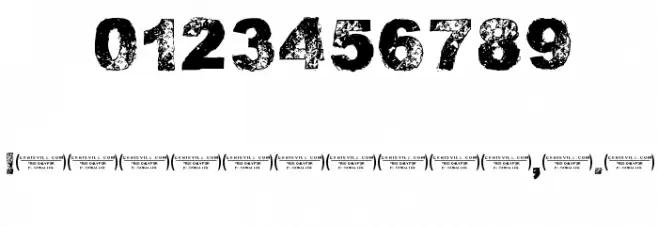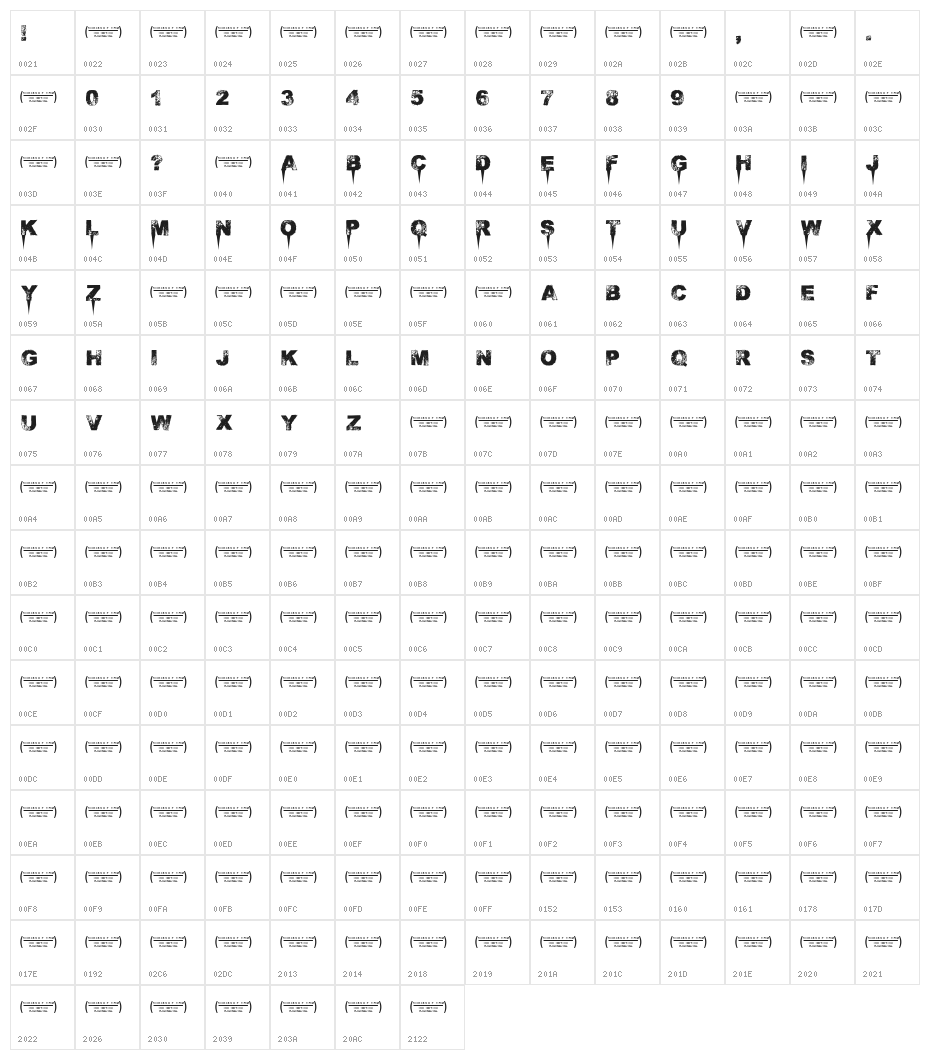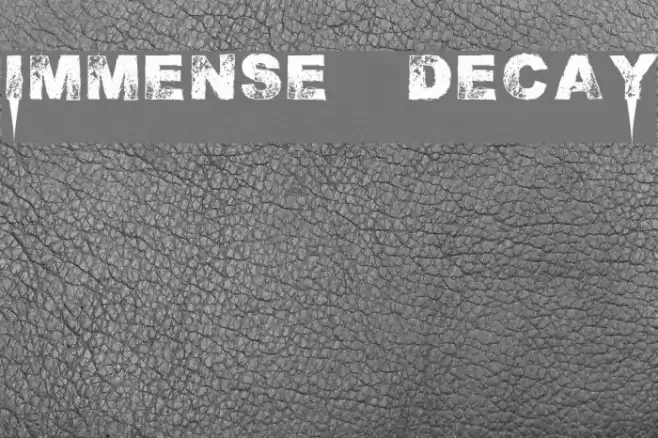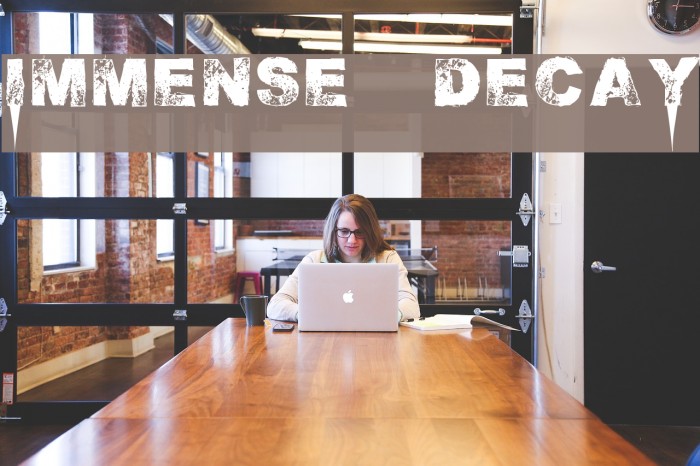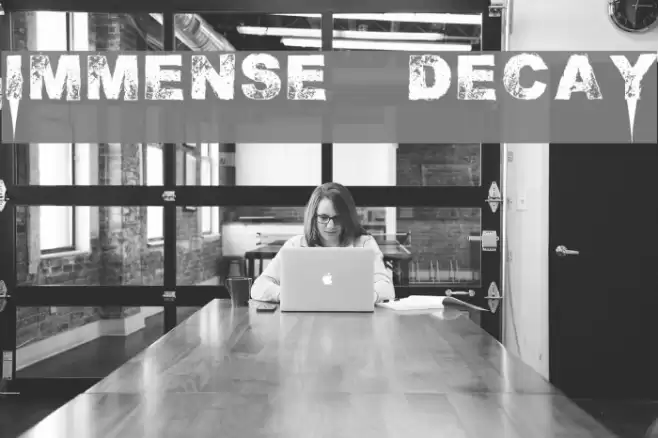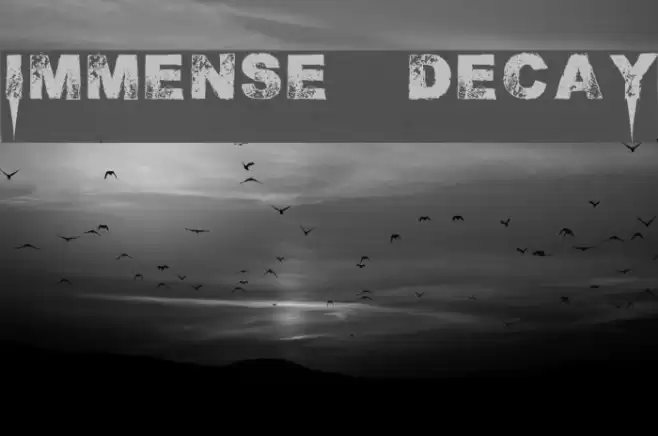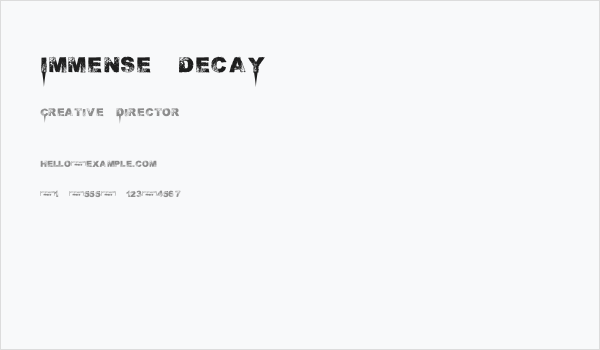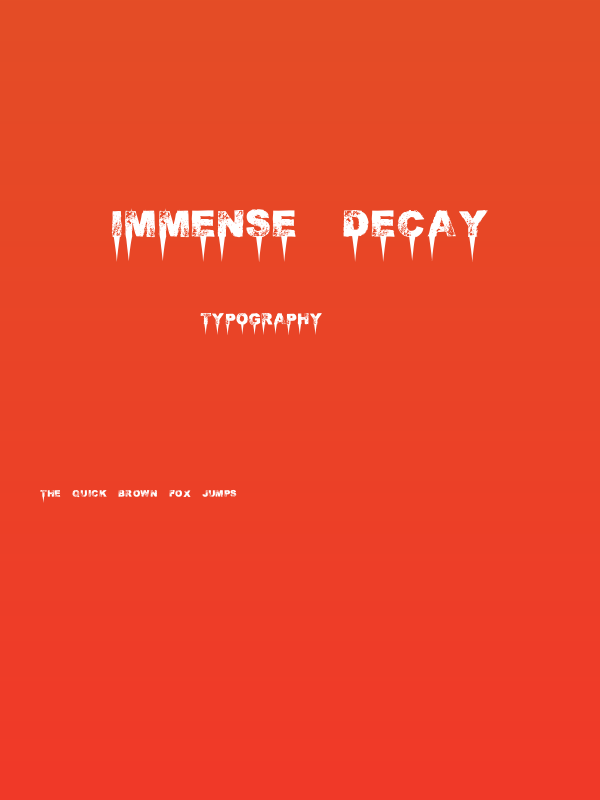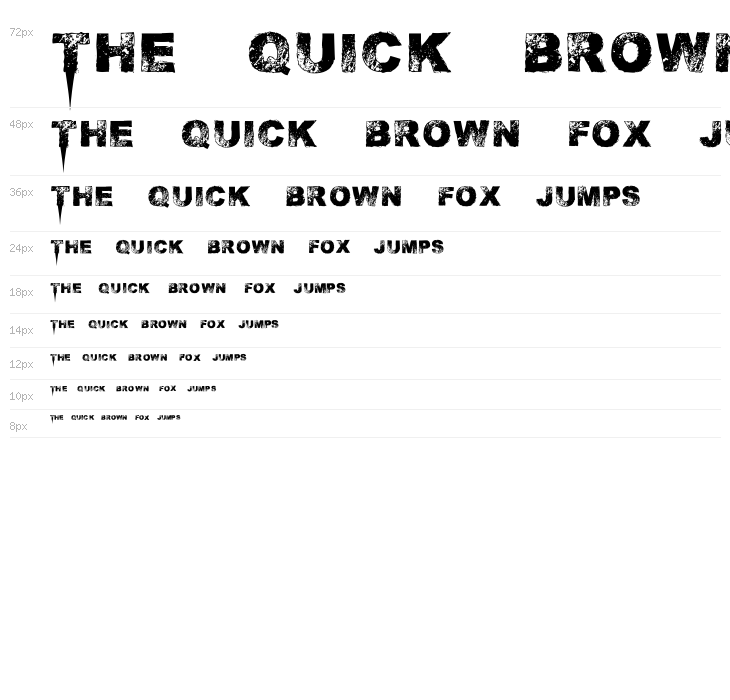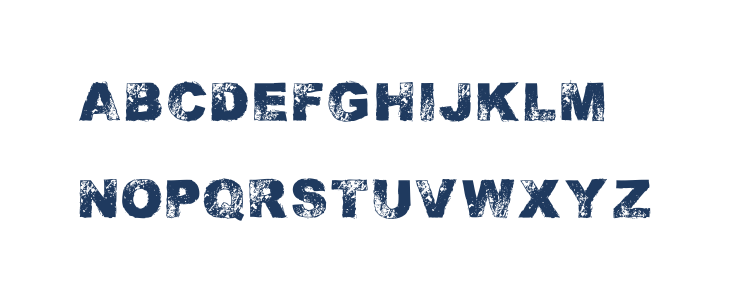
Immense decaY Font
Immense decaY Description
This font features a distressed, grunge style with a decayed, eroded texture that gives it a rugged and edgy appearance. The uppercase letters have sharp, pointed descenders that add a dramatic flair, while the lowercase letters maintain a consistent weathered look. The numbers and special characters follow the same distressed pattern, making the font cohesive across all characters. Its bold and impactful design is perfect for projects that require a strong, rebellious aesthetic.
Overall StyleGrunge, Edgy, Distressed
Use CaseHeadlines, Posters, Branding
Proposed ProjectsIdeal for music album covers, horror movie posters, edgy branding, and streetwear designs.